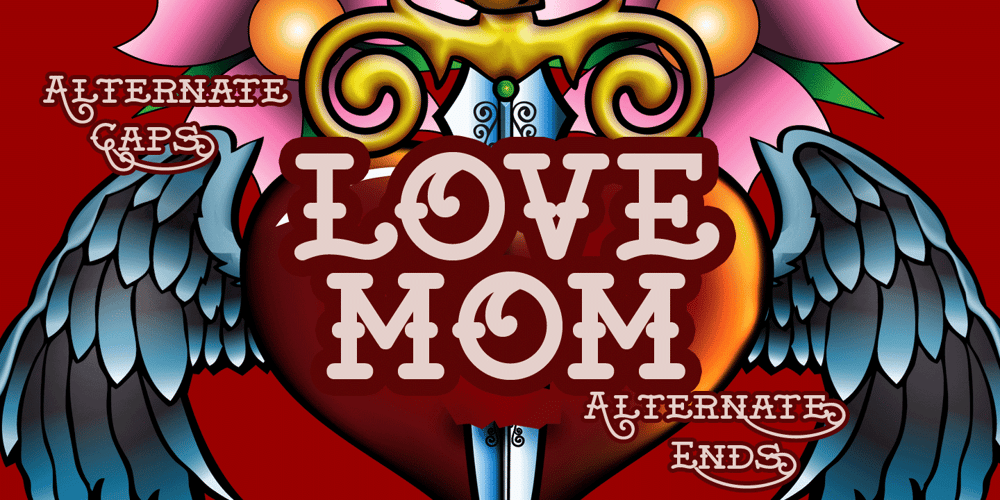
Love Mom Font Family was designed by Otto Maurer and published by Otto Maurer. Love Mom contains 6 styles and family package options. Love Mom is made for old-school Tattoo designs like old sailors Tattoos. It comes in many styles and with special Tattoo Dingbatz (Tattooflash). Alternates Caps and alternates ends are included with the Thin, Regular, and Bold styles.